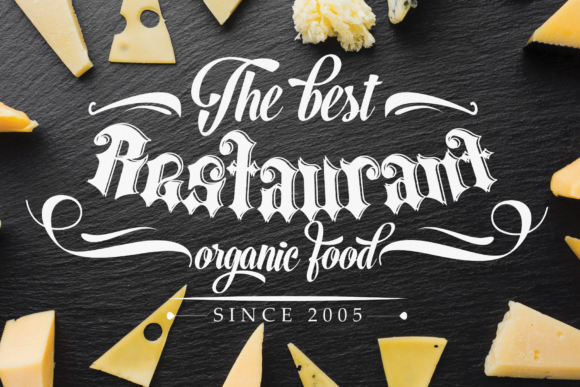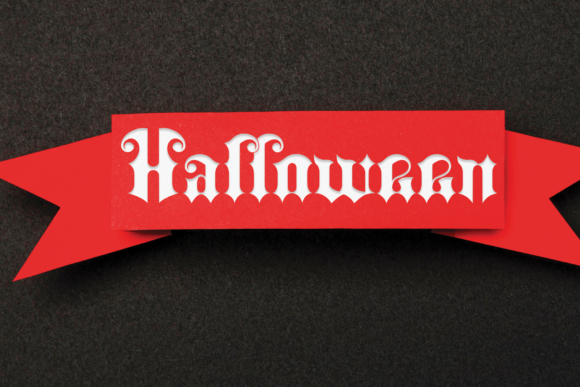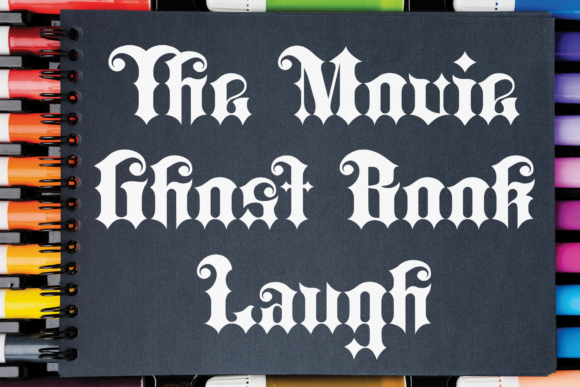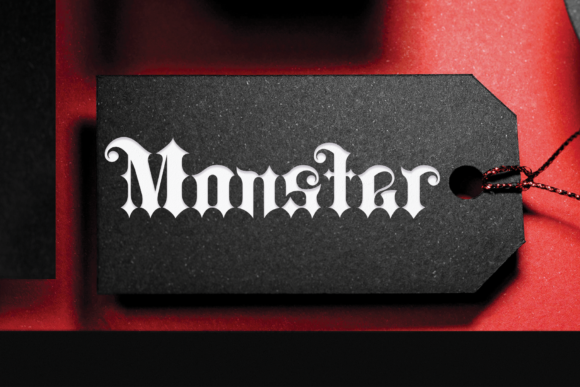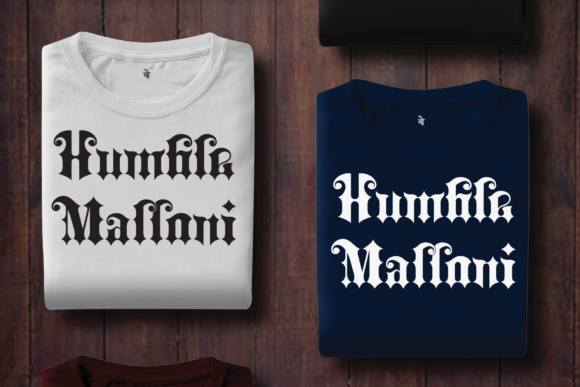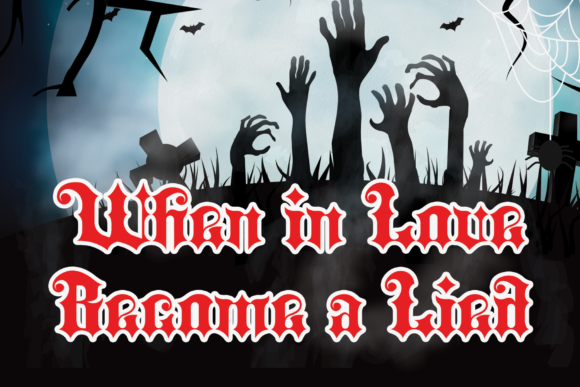
Introduction to Quacko Mahaka Font
Quacko Mahaka is an authentic and bold blackletter font.
Add this font to your favorite creative idea and watch how it makes it stand out This font is PUA encoded which means you can access all of the glyphs and swashes with ease.